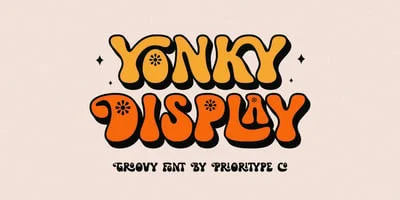
Yonky Display Font
Yonky Display Font is perfect for urban streetwear branding, hip-hop music venue signage, alternative culture magazine mastheads, underground art gallery exhibitions, independent record label logos, street art festival promotions, creative youth program materials, and edgy fashion boutique communications.
Yonky Display Font is exciting because it channels the raw creative energy of underground culture with its boldly expressive letterforms that pulse with the authentic spirit of street art and the rebellious confidence of independent artistic movements. The typeface embodies the uncompromising individuality of alternative culture and the fearless creativity that emerges from urban communities, creating an immediate sense of artistic authenticity and cultural rebellion that resonates with those who refuse to conform to mainstream expectations.
Yonky Display Font family includes Regular, Bold, Light, and Graffiti variants, complemented by urban texture effects and street-inspired decorative elements, offering designers powerful typography tools for creating communications that celebrate alternative culture and the transformative power of authentic artistic expression.
Whether you're developing an independent creative brand identity, designing underground music marketing materials, or creating authentic street culture content, Yonky Display Font provides unmatched urban authenticity and alternative appeal. This dynamic typeface perfectly captures the essence of street culture while maintaining contemporary readability for modern alternative marketing and creative communications. The font's expressive character variations and urban rhythm make it particularly effective for brands that emphasize creative freedom, cultural authenticity, and the kind of independent artistic vision that challenges conventional boundaries and inspires others to embrace their unique voice. Alternative culture professionals consistently select Yonky Display Font when projects require typography that communicates rebellion, creativity, and the kind of uncompromising artistic integrity that transforms underground movements into cultural forces, making it indispensable for alternative culture branding, independent artist marketing, and any application where bold typography can celebrate the vital importance of creative independence and the fearless artists who continue to push boundaries, challenge expectations, and create the authentic cultural expressions that keep art alive, relevant, and revolutionary.